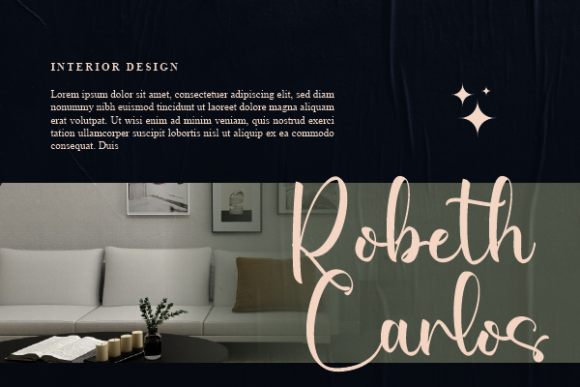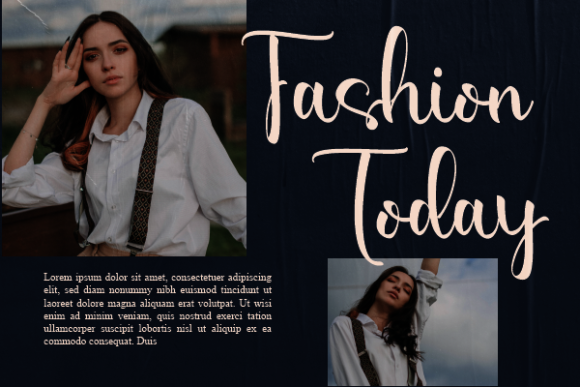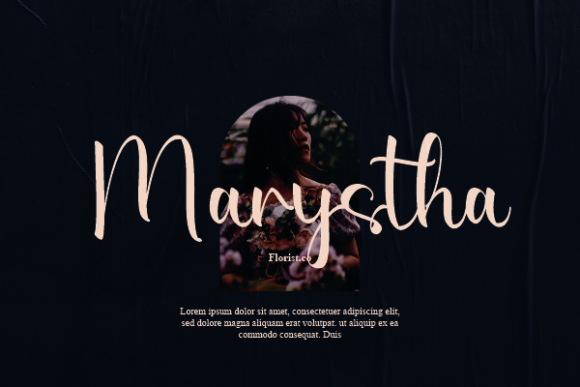
Introduction to Pullman Penelope Font
Pullman Penelope is an exquisite handwritten font, masterfully designed to become a true favorite.
Why Choose Pullman Penelope Font?
Pullman Penelope Font offers exceptional quality and versatility, making it a valuable addition to your design toolkit. Whether you’re creating for personal projects or commercial use, Pullman Penelope Font delivers professional results.